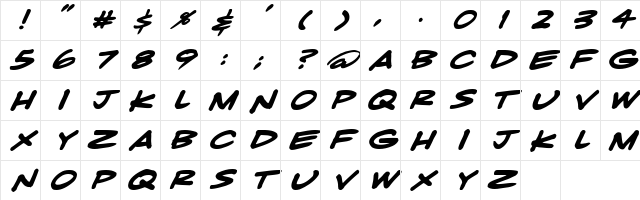
LHF Fast Caps Italic Free Font
LHF Fast Caps Italic
Design Context for LHF Fast Caps
LHF Fast Caps is a composed and adaptable typeface that performs quietly and consistently across a wide range of design contexts. The slanted form adds forward momentum and visual energy.
Pro Tip: Use LHF Fast Caps for emphasis, pull quotes, and subheadings where its slanted energy can add rhythm to the layout.